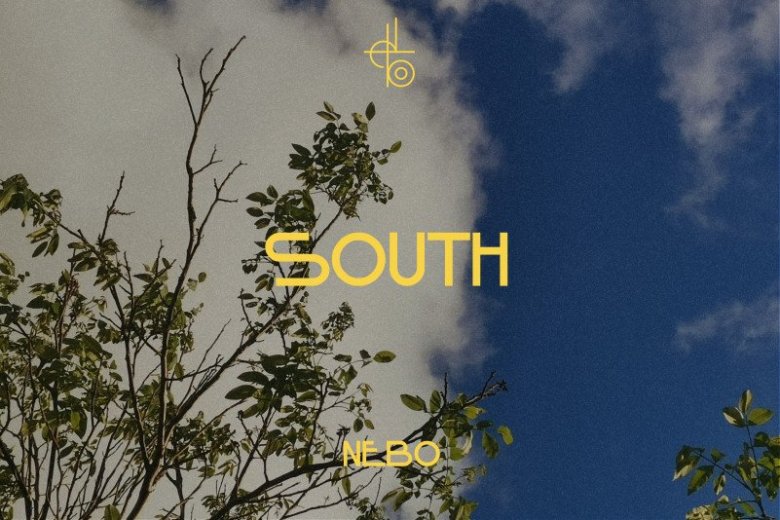
South Font
South Sans Serif Font
South Sans Serif Font is a modern sans typeface with a futuristic touch. Inspired by Art Deco typography. This multi-purpose typeface will grab reader’s attention with its stylish and neat design. The font is perfect for posters, headlines, covers, and also great for small texts.